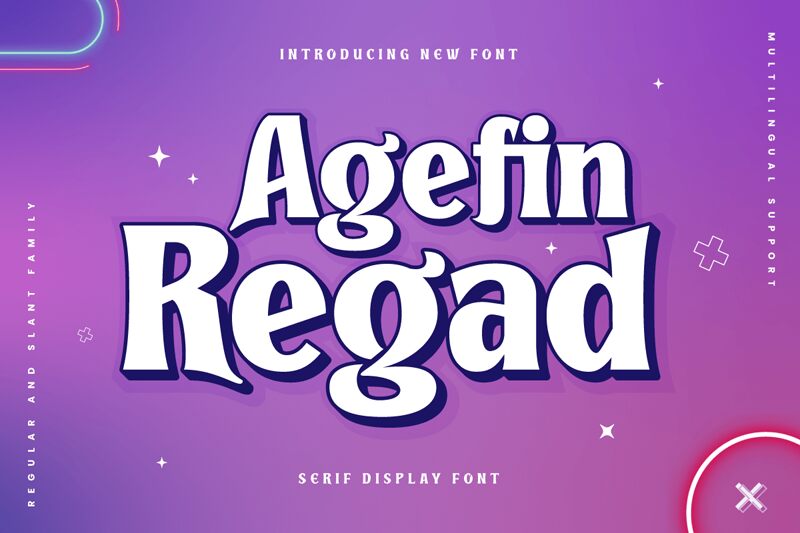
Agefin Regad trial Regular
Agefin Regad font by Productype is a captivating serif with a bold weight that commands attention. Its intricate curves and classic serifs exude an aura of timeless elegance, making it perfect for projects that seek sophistication and impact. The bold style ensures readability while adding a touch of grandeur to your designs.
Ideal for both digital and print applications, Agefin Regad is versatile enough for branding, headings, and editorial use. Its bold presence ensures your message stands out, whether in professional presentations or creative ventures.